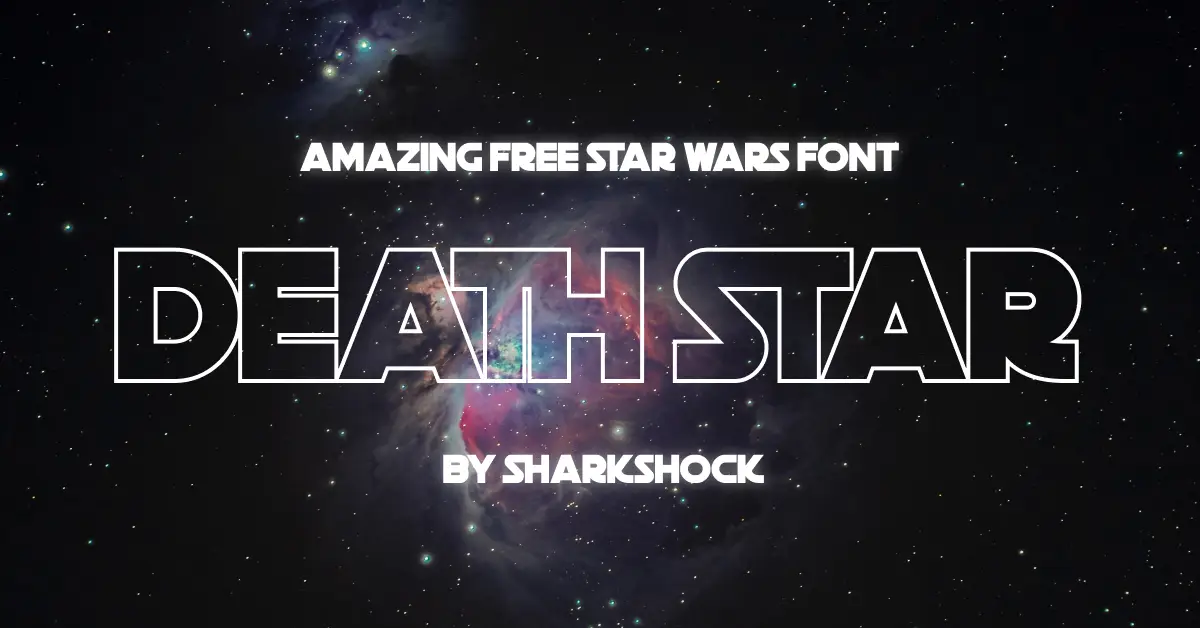
Star Wars Display Font
The Star Wars Display Font is a captivating typeface inspired by the iconic sci-fi franchise. Perfect for fans and designers alike, this font brings a touch of the galaxy far, far away to your projects.
• Unique display style that captures the essence of Star Wars
• Multiple weights for versatile design options
• Style: Display
Ideal for branding, logos, posters, and web design, the Star Wars Display Font will make your text stand out with its bold and adventurous style.